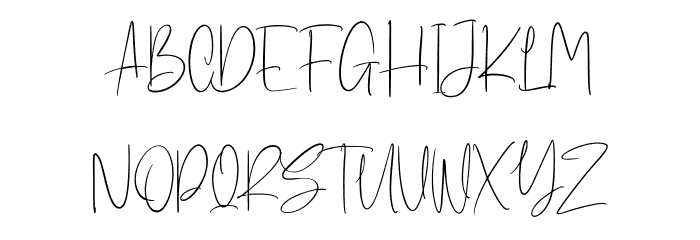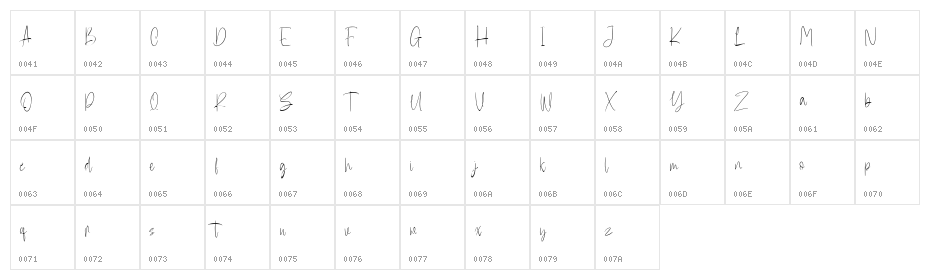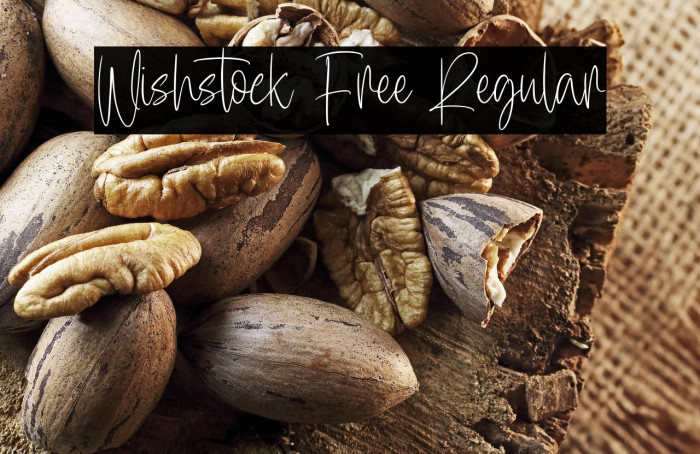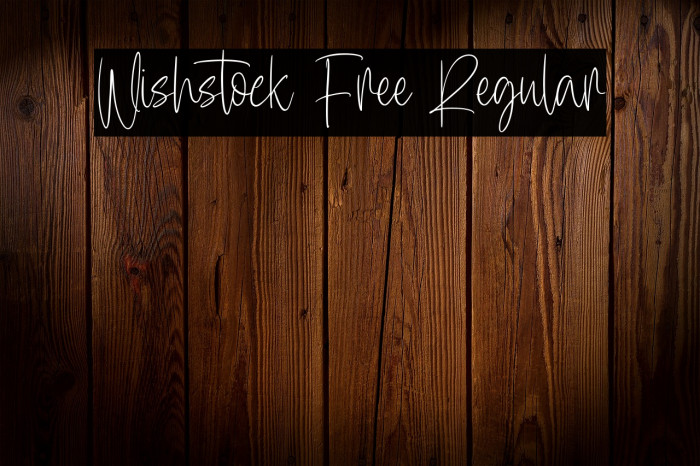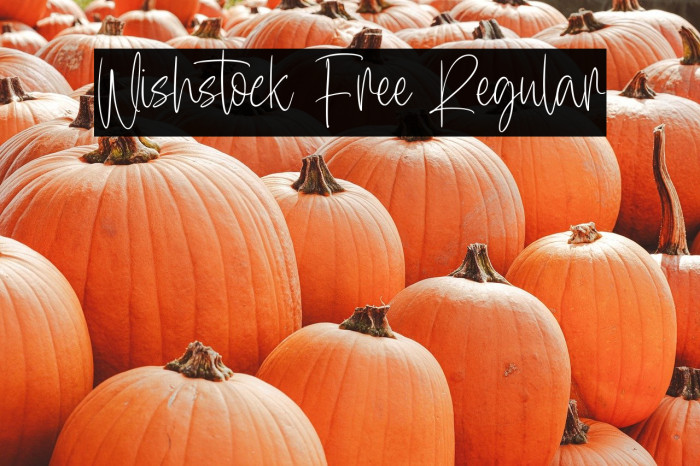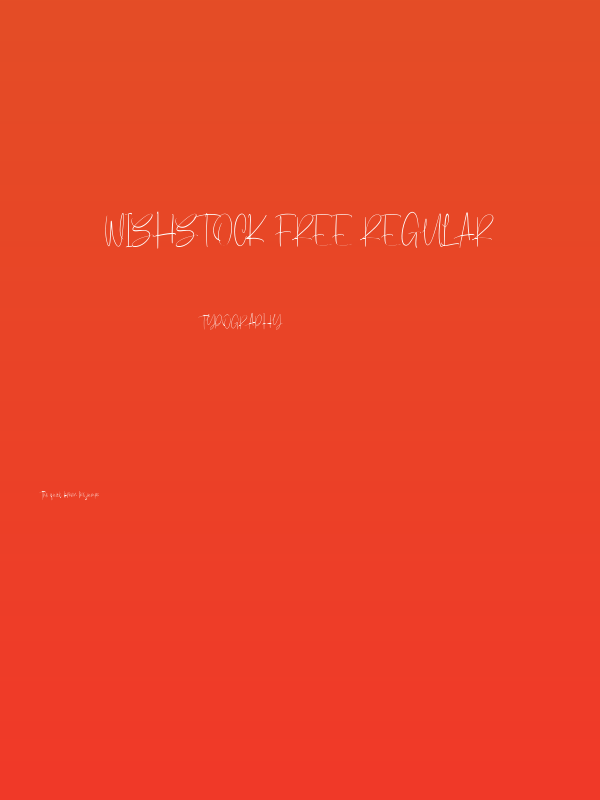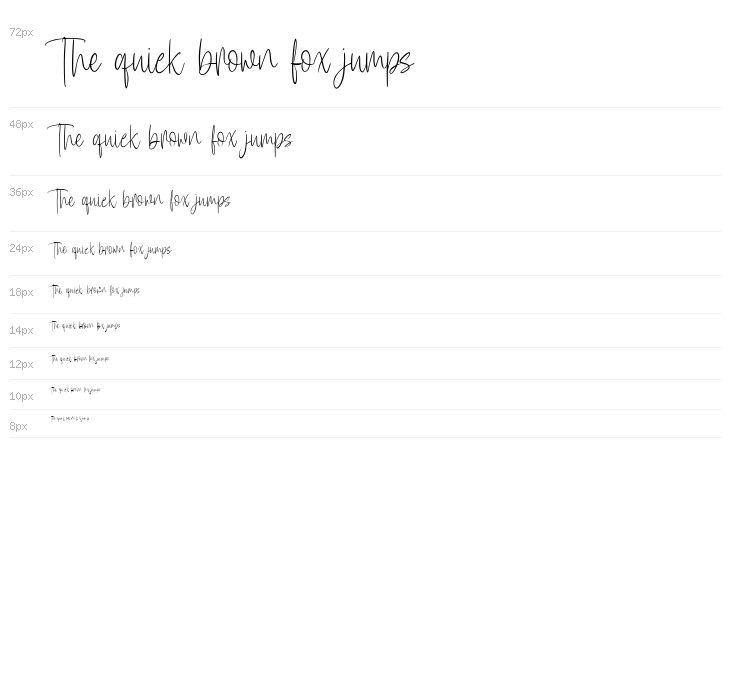
Wishstock Free Regular Font
Wishstock Free Regular Description
A thin, handwritten script font with tall, narrow letterforms and irregular, playful strokes, giving it a casual and whimsical appearance. The characters have a loose, free-flowing style with variable line thickness and noticeable ascenders and descenders.
| Width | Condensed |
| Overall Style | Decorative, Casual, Whimsical |
| Use Case | Logos, Headlines, Invitations, Social Media |
| Proposed Projects | Greeting cards, invitations, personal branding, quotes, social media graphics, casual posters. |